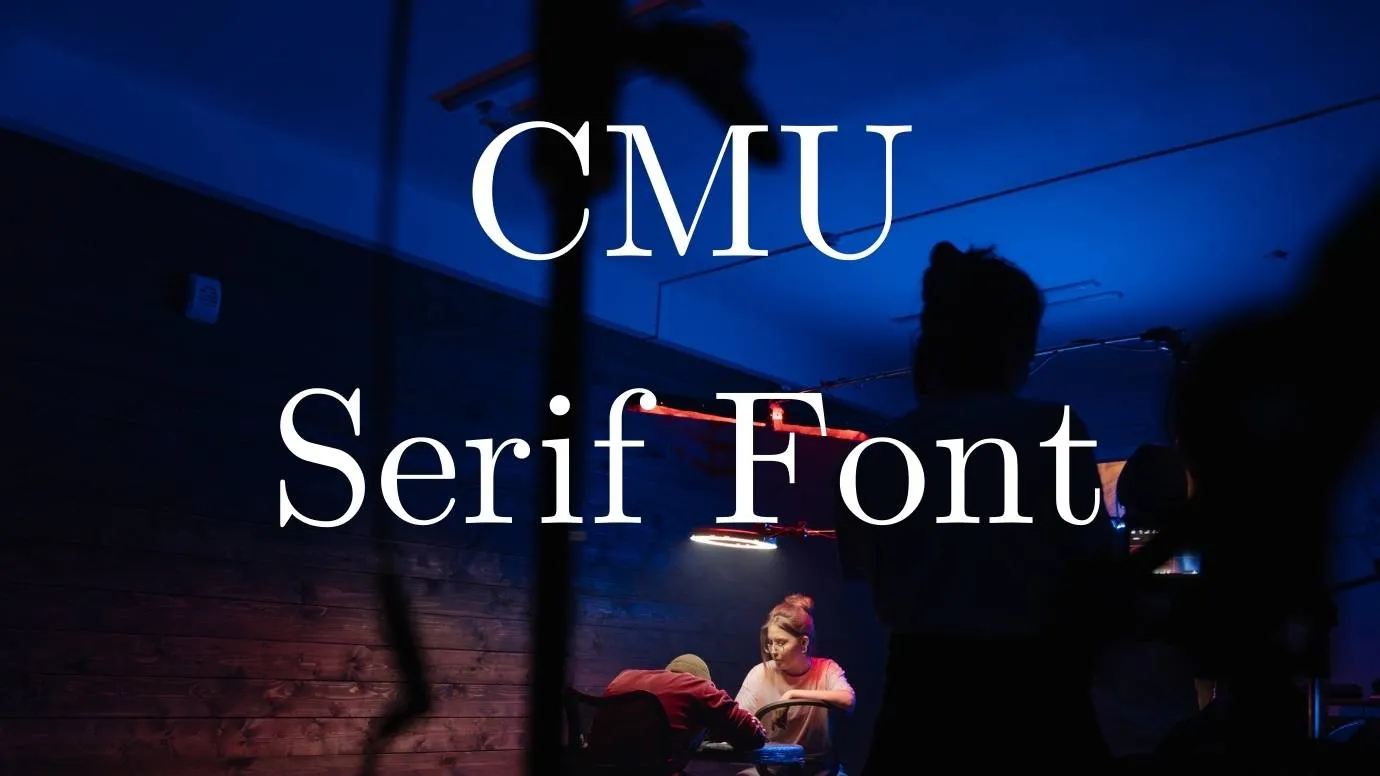
Presenting CMU Serif Font Family is a computer modern typeface originally crafted by the distinguished designer Donald Knuth.
It features 431 appealing characters that form distinctive texture patterns. In the design industry, this font has achieved remarkable success, making it a favorite among typographic developers for use in their projects.
CMU Serif Font